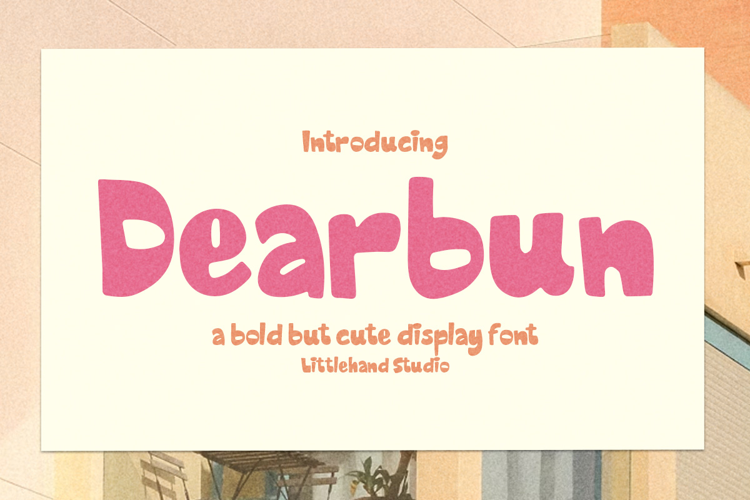
Dearbun Display Font
Dearbun is a bold yet cute display font with chunky shapes, rounded corners, and a soft handmade feel. The letterforms are thick and friendly, creating a playful and modern look that feels cheerful without being too loud. Its vibe is sweet, casual, and easygoing, making it perfect for headlines, posters, packaging text, social media graphics, kids projects, stickers, and branding designs that need a bright and lovable character.